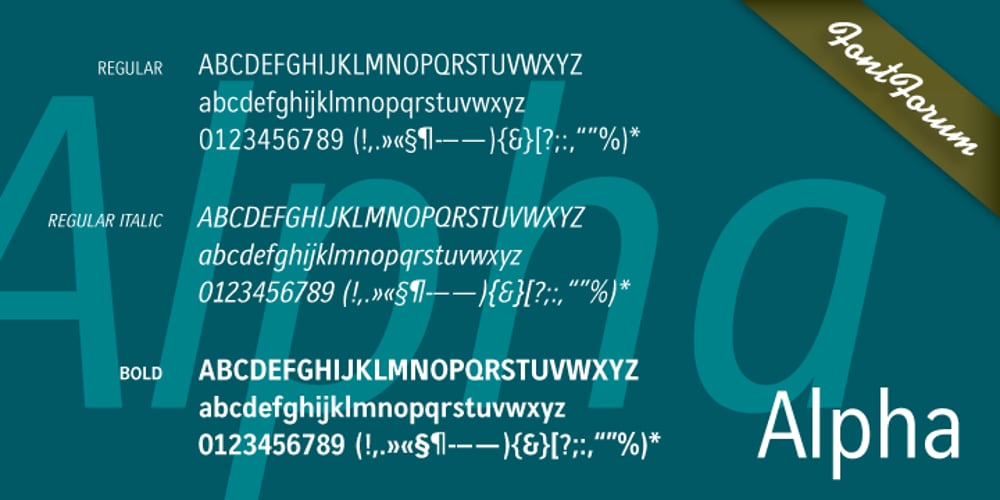
Alpha Font Family was designed by Maren Hüther and published by URW Type Foundry. Alpha contains 3 styles and family package options. Alpha is a modern Sans Serif design, very elegant and readable but still also economic. Alpha is offered in regular, bold and italic, with the bold italic still in the works. Alpha is strikingly clear and without any flourishes. Its pretty large x-height guarantees excellent readability, and the design is easily recognized.